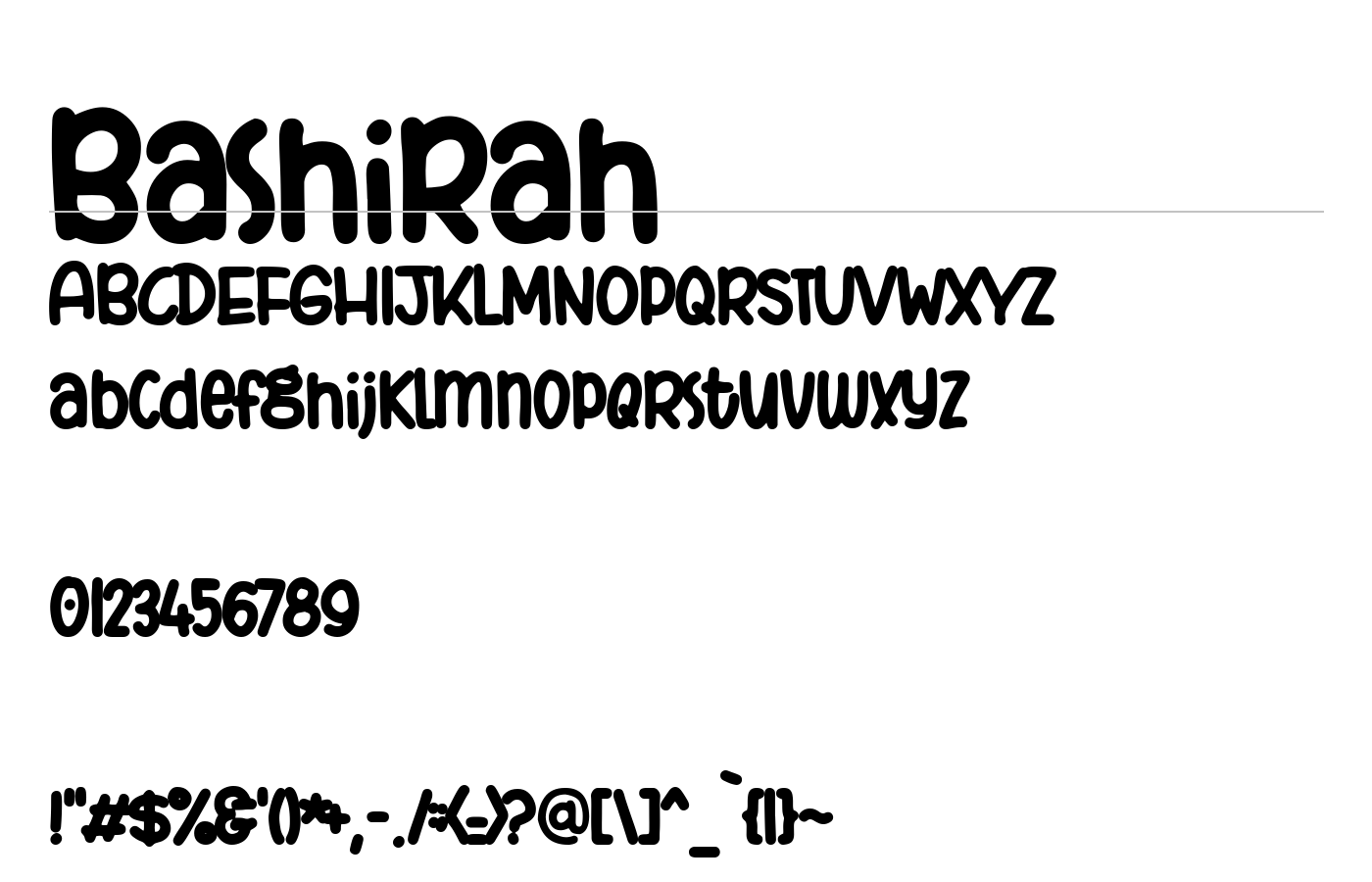
Bashirah is a playful, bold sans serif font with rounded edges and a hand-drawn feel that gives it a warm, approachable personality. Its tall x-height and slightly irregular letterforms make it great for casual, fun designs like kids' products, informal branding, and lively headlines. This font works well where a friendly and creative vibe is desired, adding charm and character to any project.
Bashirah Font
About Bashirah Font